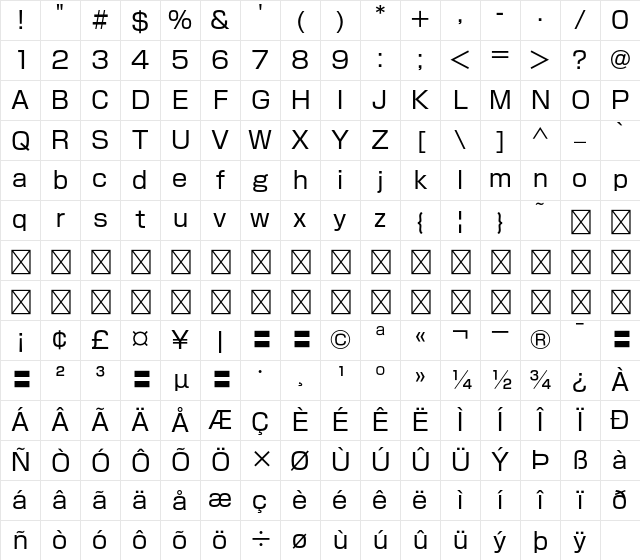
Complete A-OTF WanpakuGN Std R glyph index. Displaying only characters natively supported by A-OTF WanpakuGN Std R font.
A-OTF WanpakuGN Std is a composed and adaptable typeface that performs quietly and consistently across a wide range of design contexts.